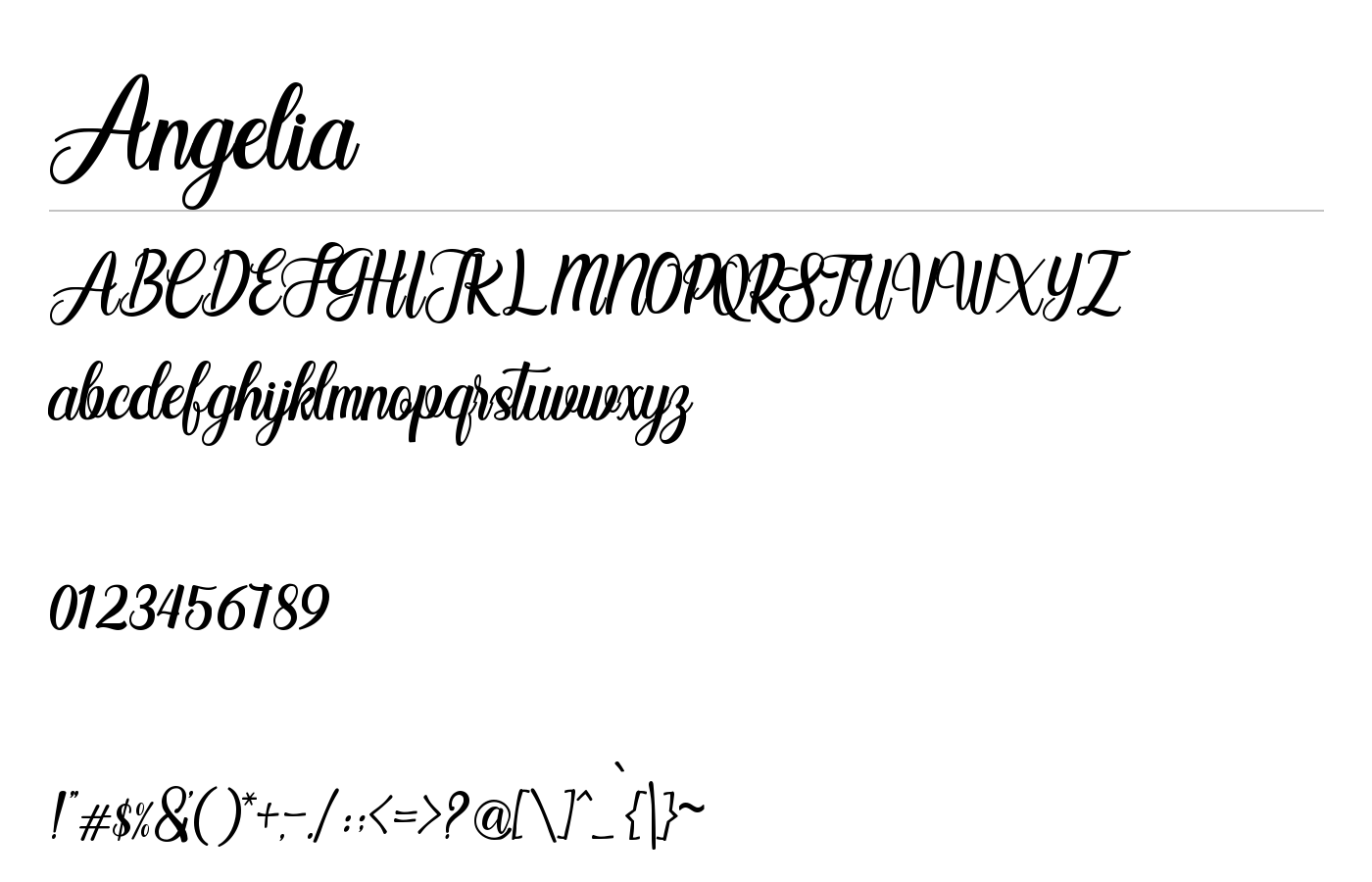
Angelia is a graceful script font characterized by its elegant, flowing strokes and moderately high contrast that lend it a refined, handwritten feel. Its smooth, slightly condensed letterforms and delicate curves make it ideal for projects that seek a sophisticated and feminine touch, such as invitations, branding, and fashion-focused designs. This font works best in headlines or decorative accents where its charming personality can stand out without sacrificing readability.
| Font family | Angelia Font |
| Designer | ZainStudio |